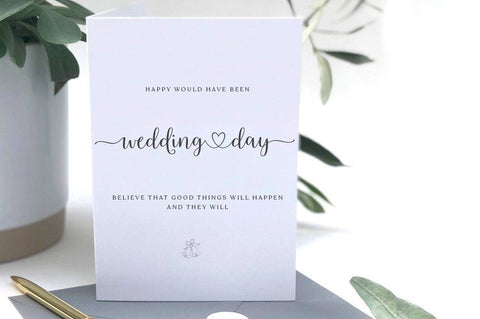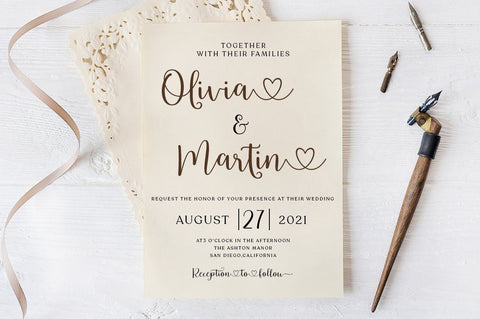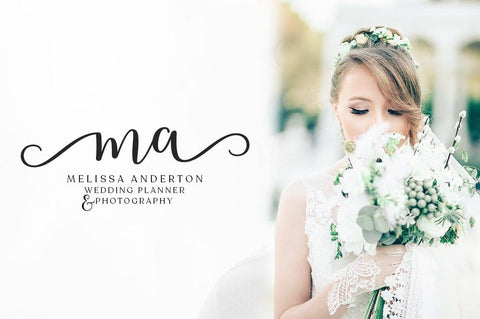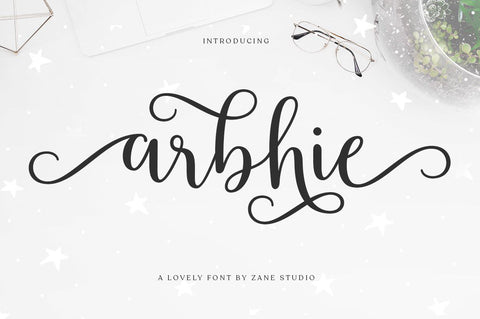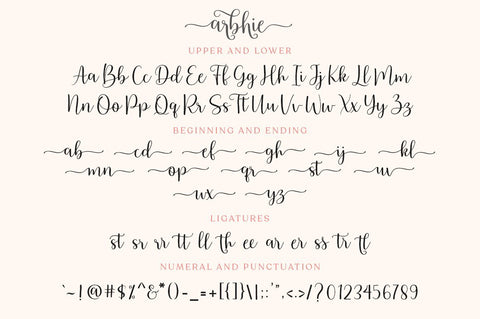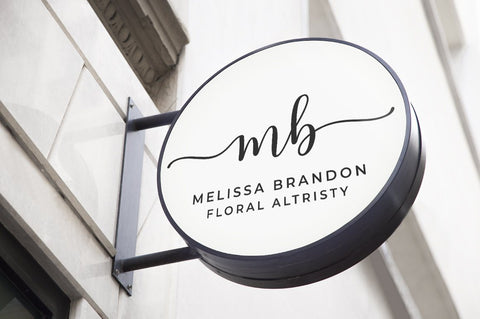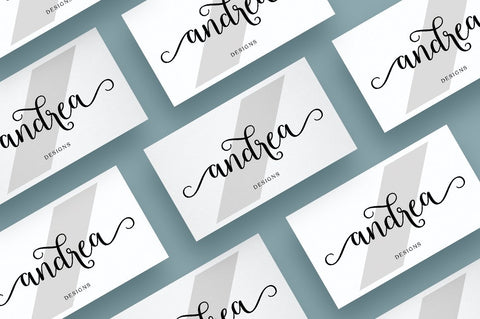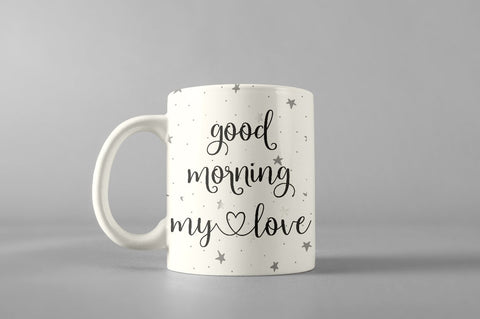
Arbhie Script
Arbhie Script is a beautiful, modern and new calligraphy font with many alternative styles, swashes make this font look natural, elegant and perfect for extraordinary projects.
Arbhie Script is perfect for various projects such as invitations, product packaging, product design, labels, photography, watermarks, logos & branding or whatever.